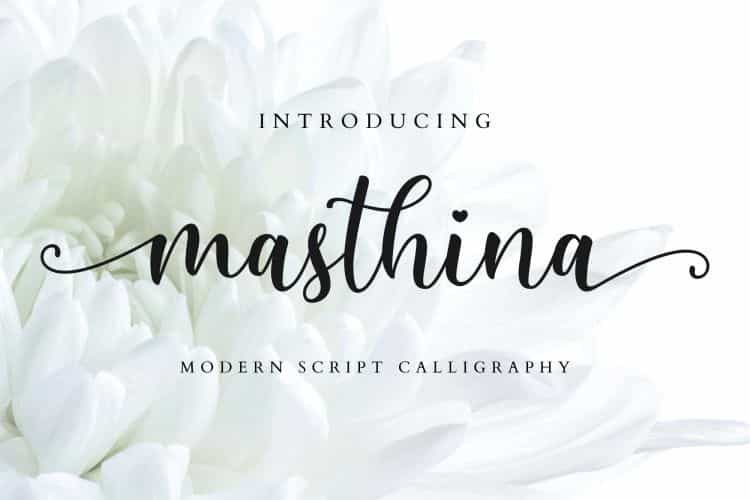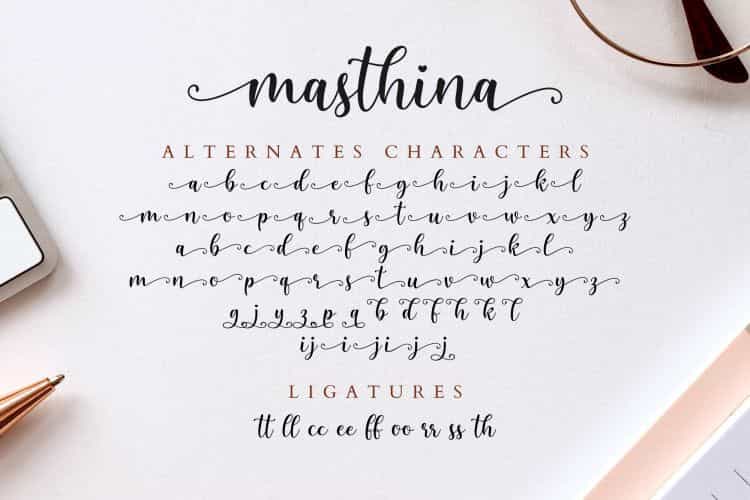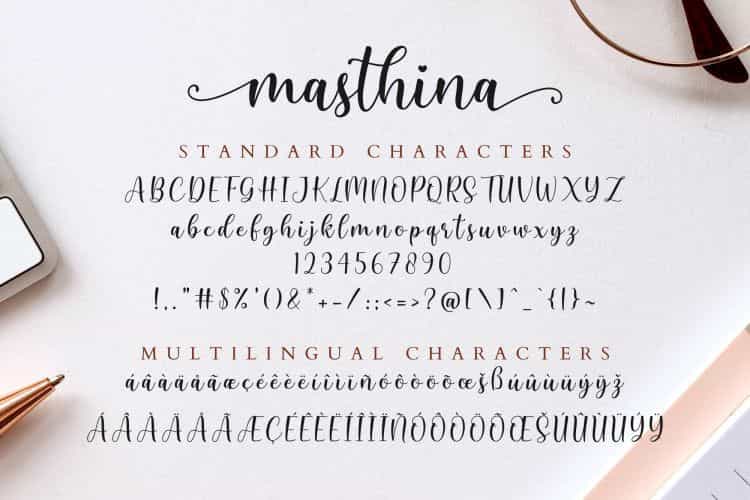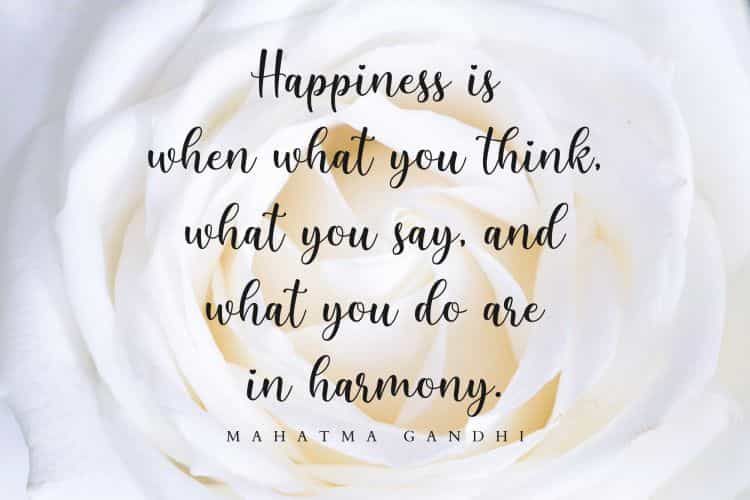
Masthina is a modern calligraphy script font with a lot of wild and creative feeling in it for now. It is a very beautiful script with a kind of a modern outlook. It has a sleek, conservative and contemporary appearance. Allow me to introduce Masthina Font to you.